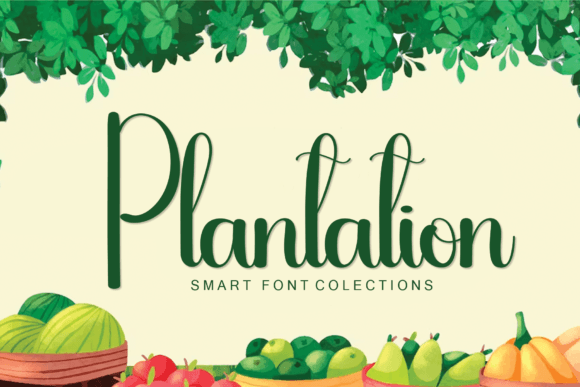
Behold the beauty and charm of Plantation Font, the exquisite script typeface that will transform your designs into works of art. Crafted with meticulous care by the talented William Jhardy, this font exudes elegance and playfulness that will capture hearts and leave a lasting impression.
Step into a world of enchantment, where your words dance with grace and flow with effortless beauty. Plantation Font's smooth curves and delicate swashes create a captivating visual symphony, inviting your readers to immerse themselves in the story you tell. With its enchanting personality, this font breathes life into your designs, making them stand out in a sea of ordinary typography.
Feel the warmth and joy that Plantation Font radiates. Its friendly and approachable nature makes it the perfect choice for heartfelt messages, personal branding, and whimsical creations. Whether you're designing wedding invitations, greeting cards, social media posts, or any project that calls for a touch of charm, this font will add a layer of magic that will leave your audience spellbound.
Unlock the versatility of Plantation Font and let your imagination run wild. Its wide range of applications makes it a favorite among designers of all skill levels. From eye-catching logos and branding to stunning website designs and captivating marketing materials, this font adapts seamlessly to your creative vision. Experience the joy of crafting designs that resonate with your audience, leaving a lasting impression that will keep them coming back for more.
Don't settle for ordinary fonts that blend into the background. Embrace the allure of Plantation Font and watch as your designs come alive with a personality that captures attention and leaves a lasting impact. Let this font be your creative partner, guiding you to new heights of design excellence.